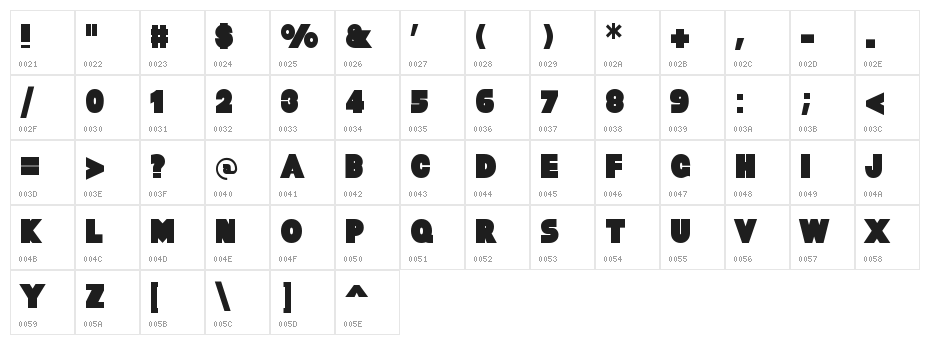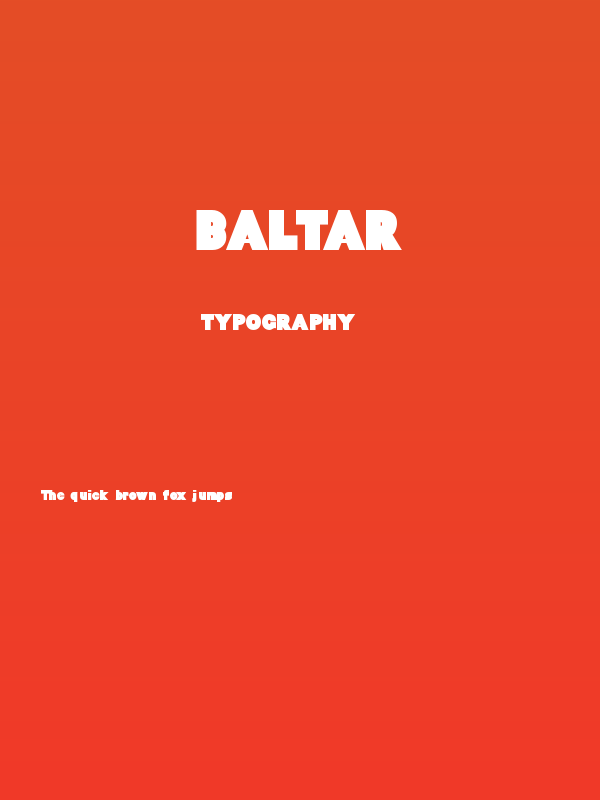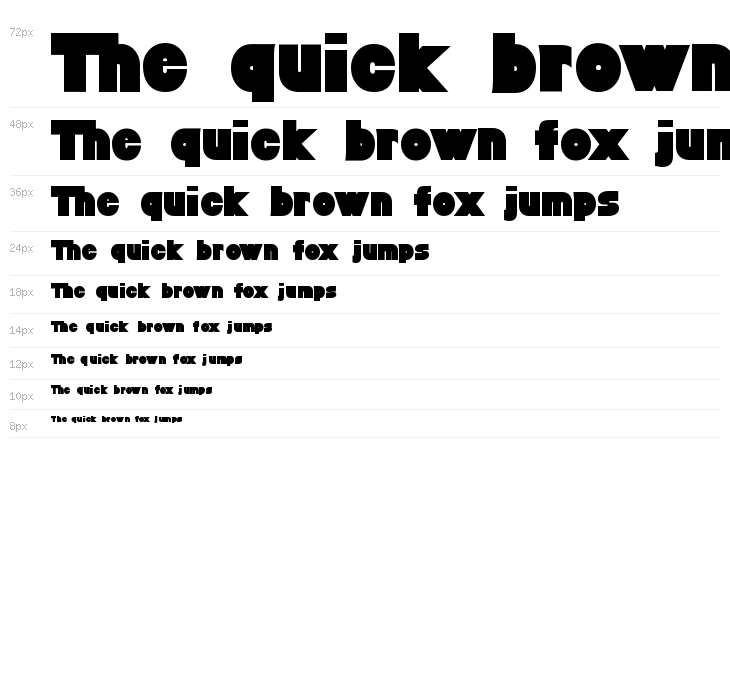
Baltar Font
Baltar Description
This bold and impactful font features thick, blocky letters with a strong presence. The uppercase and lowercase characters maintain a consistent weight, creating a cohesive look. The numbers are equally bold, ensuring visibility and emphasis. Special characters are designed with the same robust style, making them stand out. The font's geometric shapes and uniform stroke widths give it a modern and assertive appearance, perfect for grabbing attention.
| Proposed Projects | Ideal for headlines, posters, logos, and branding materials that require a bold statement. |